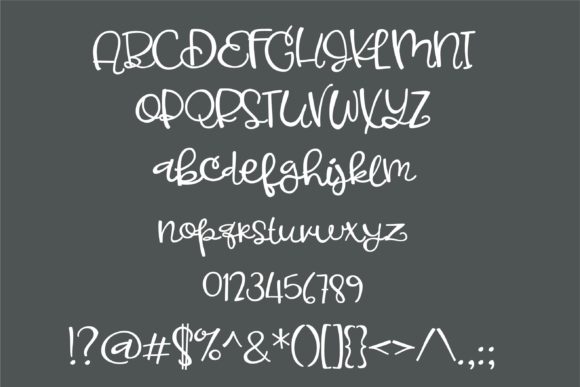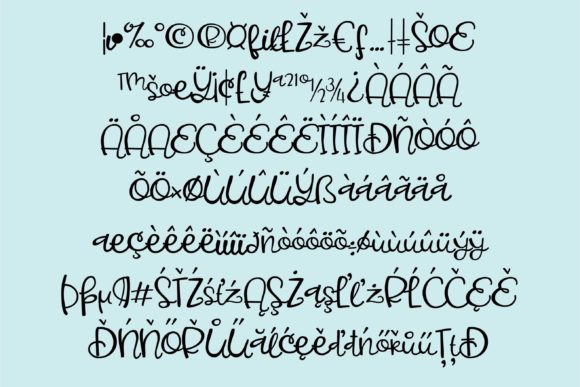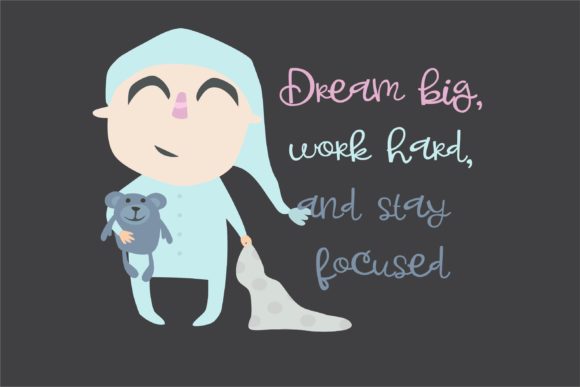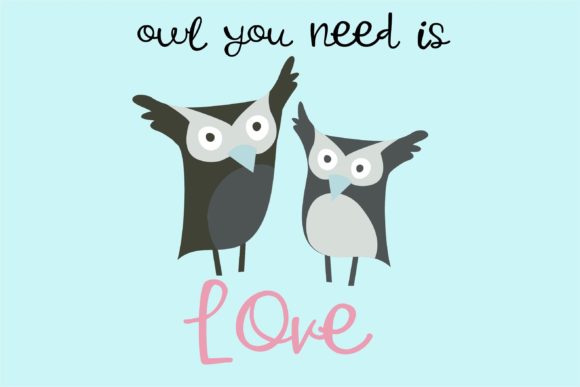
Dream Culture Font
About Dream Culture Font
Dream Culture is a whimsical quasi script full of energy. Get crafty with this extraordinary script, and turn any arts & crafts idea into a masterpiece!